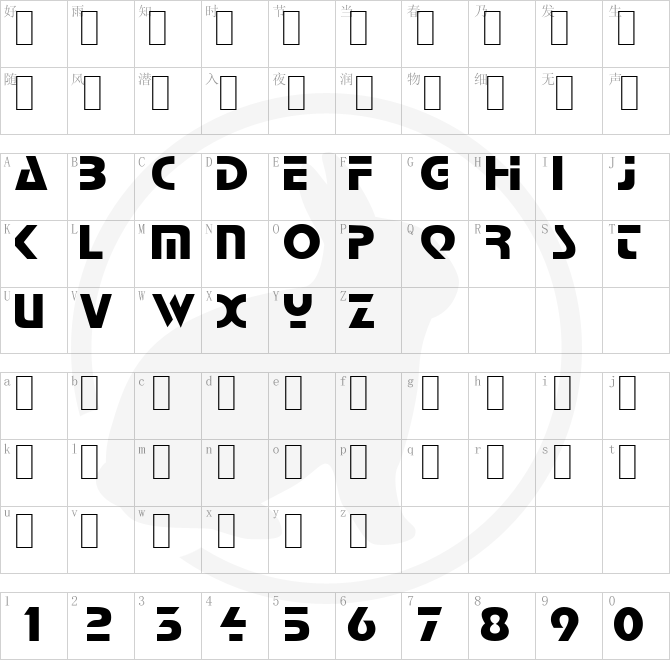
- Font Name:Babylon Industrial
- Copyright:This font is based on the background font used in the television show Babylon 5. Pretty to look at, but kinda hard to read if you're trying to find the local escape pod entrance in a panic. :)